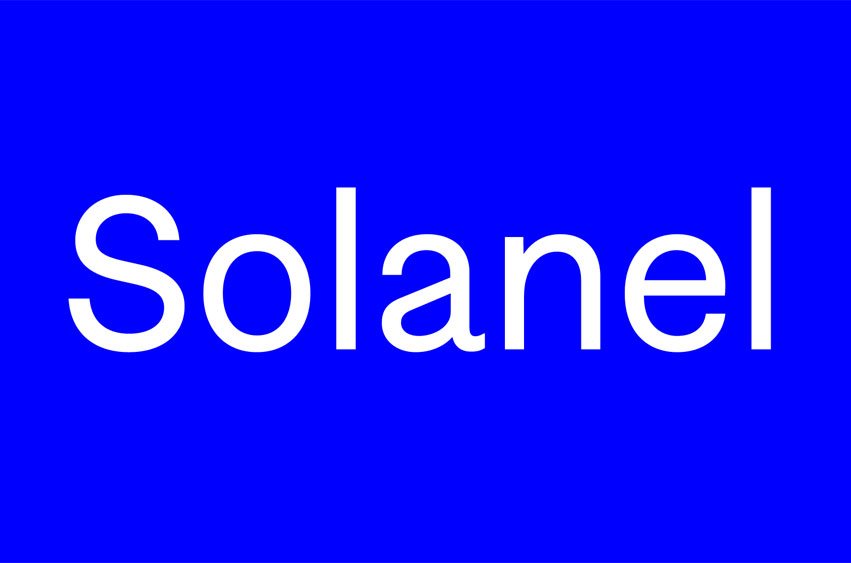
Solanel Font is neo-grotesque with flawless curves. This is a low-contrasted and smooth sans-serif with subtle and effortless details. One of the main particularity is its italic, which is not a rendition of a slanted roman, but a mix of a rotated and slanted version, which give a “rotalic” feel.
The large range of style, from UltraThin to Black help to give flexibility to this family. This family contains many OpenType features, such as Alternates, Small Caps, Proportional Figure, Tabular Figures, Numerators, Superscript, Denominators, Scientific Inferiors, Subscript, Ordinals and Fractions, which make that typeface useful in various projects.